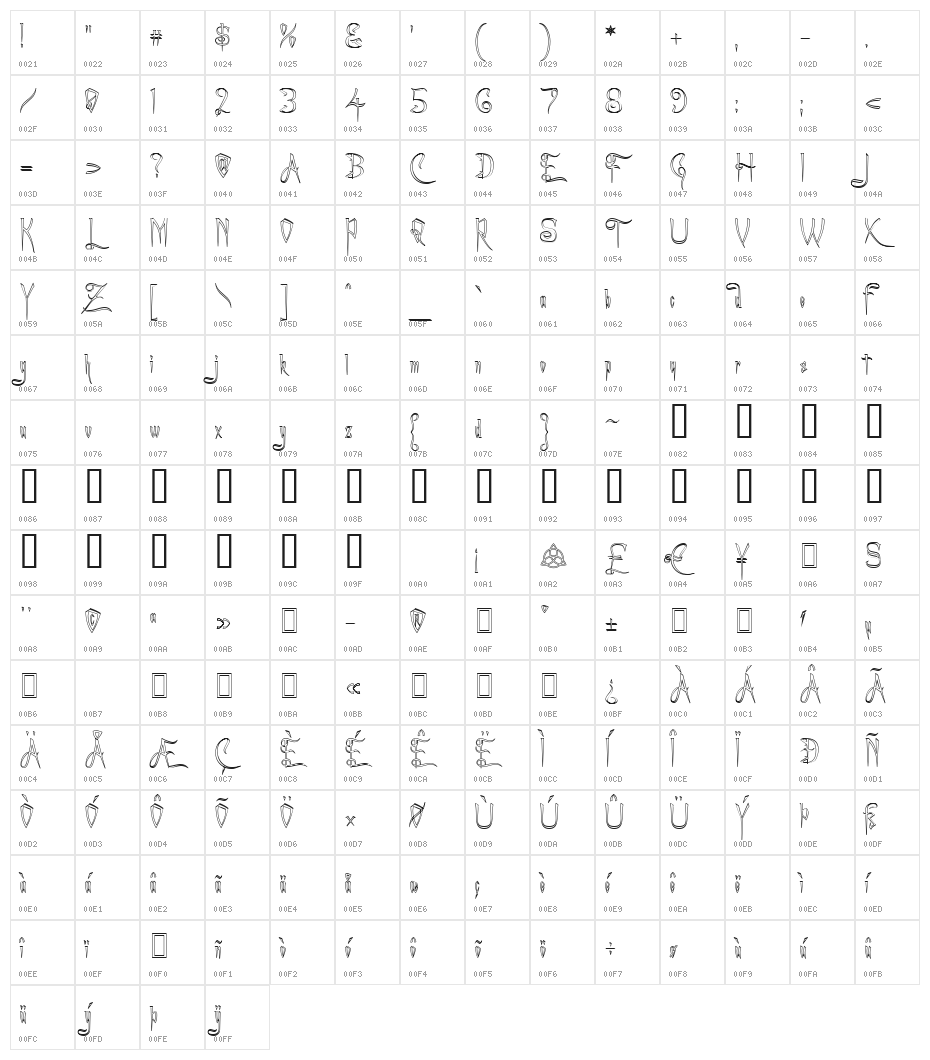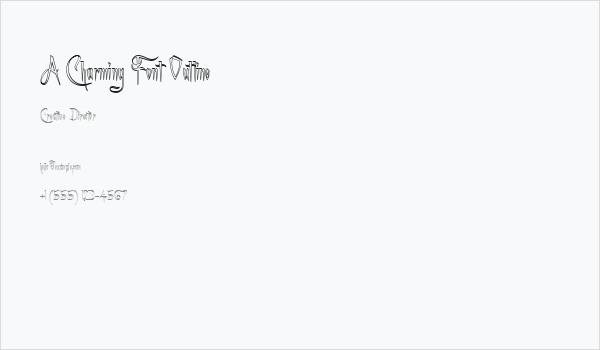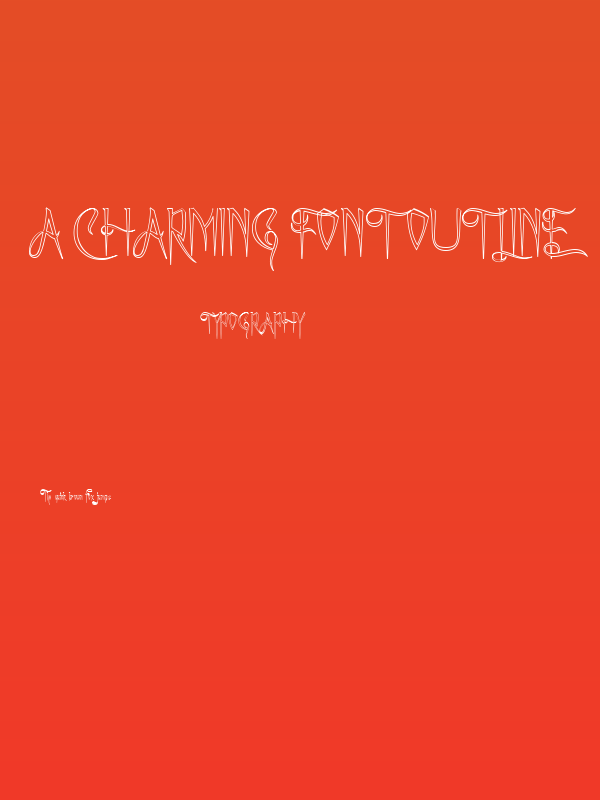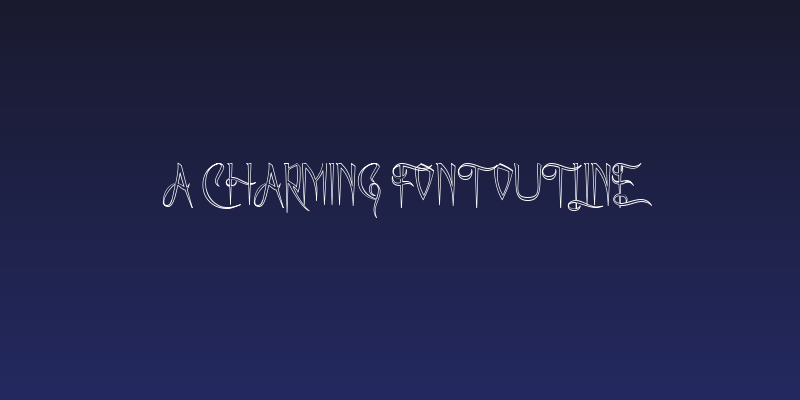
A Charming Font Outline Font
A Charming Font Outline Description
This font features an elaborate and decorative style with intricate outlines and flourishes. The uppercase letters are tall and elegant, with unique curves and loops that give them a whimsical and artistic appearance. The lowercase letters maintain a similar decorative flair, with some characters featuring additional embellishments such as dots and swirls. The numbers are equally stylized, with a playful yet sophisticated look. Special characters are creatively designed, adding to the font's overall charm. This font's outline style enhances its decorative nature, making it stand out in any design.
| Use Case | Headlines, Logos, Artistic designs |
| Proposed Projects | Ideal for invitations, greeting cards, posters, and artistic branding projects. |